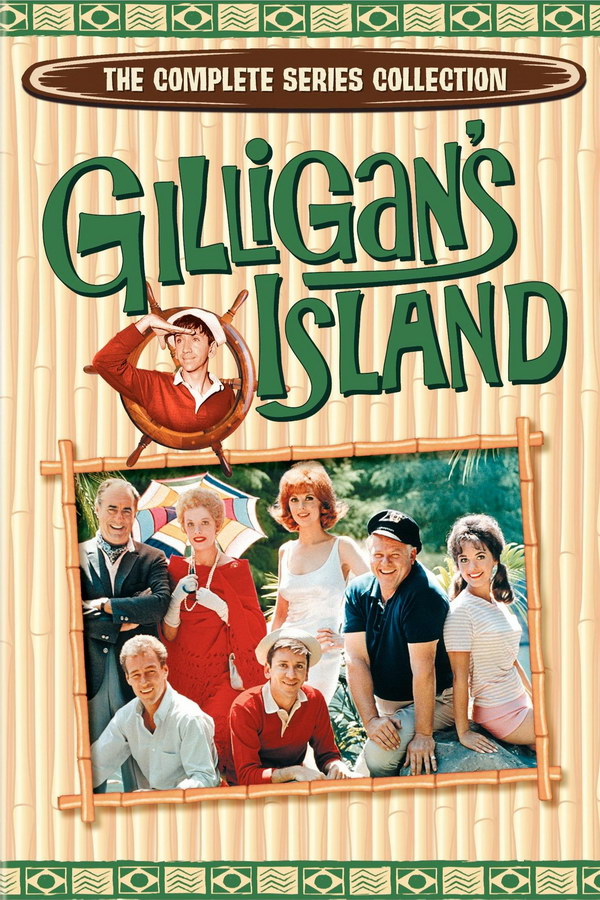
Gilligan’s Island Font
ComedyGilligan’s Island is a 1960s American sitcom about seven castaways stranded on an uninhabited island after their boat, the S.S. Minnow, is shipwrecked.
The ''Gilligan's Island'' title lettering is based on a font similar to Gilligan's Island designed by Mark Riddle. It comes in both uppercase and lowercase letters and is available for free download in the Fonts Used Section.